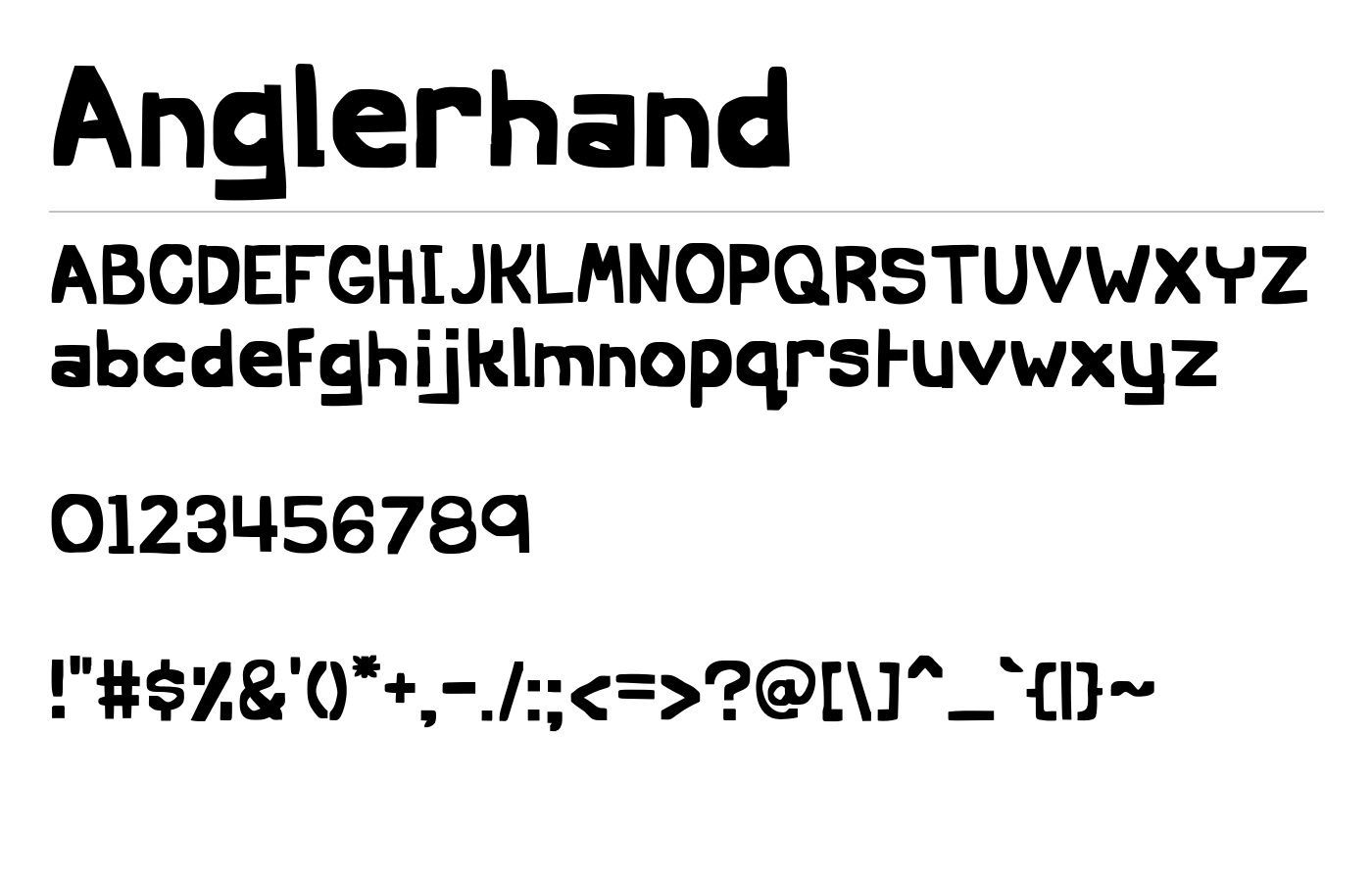
Anglerhand is a bold, quirky sans serif font with a playful and hand-crafted feel. Its irregular letter shapes and slightly uneven strokes give it a casual and friendly personality, making it ideal for creative projects, children's materials, or informal branding. This font works well in headlines, logos, or packaging where a fun and approachable style is desired.
Anglerhand Font